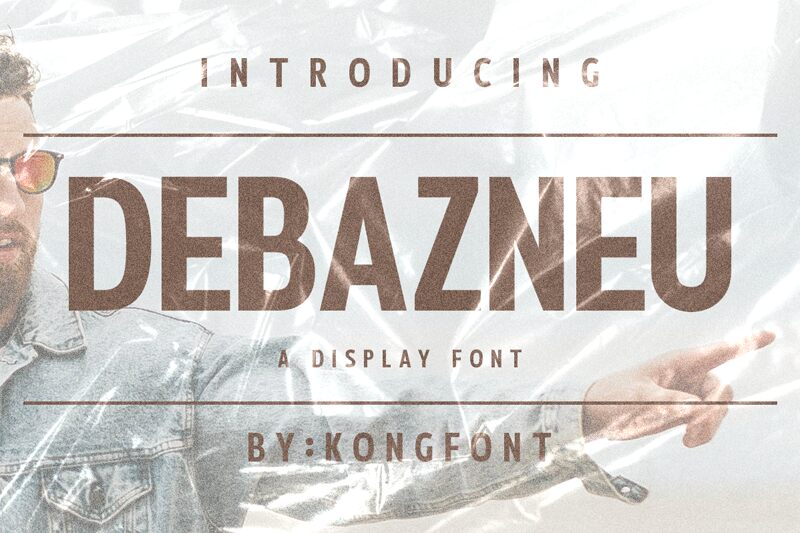
Debaznue font has a contemporary industrial feel; geometric and structured yet very human. This professionally clean font was informed by humanist characteristics. It pairs well with another font in contrast. With the right pair, this free font will surely elevate a design making it look sleek and interesting without a doubt about professionalism.